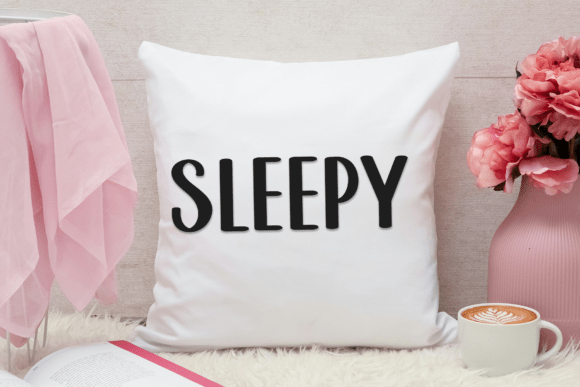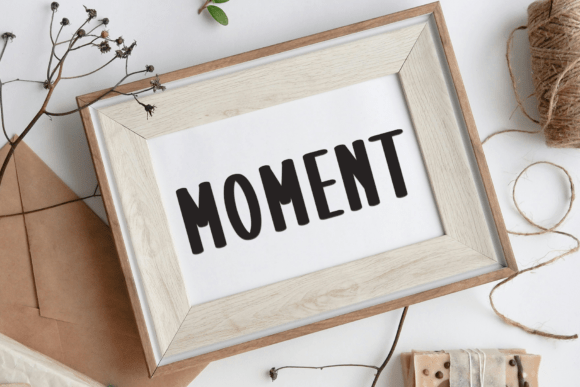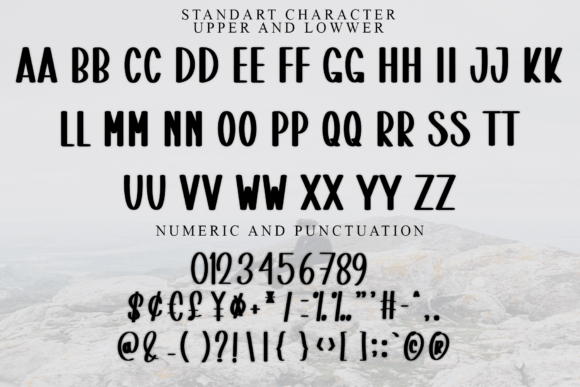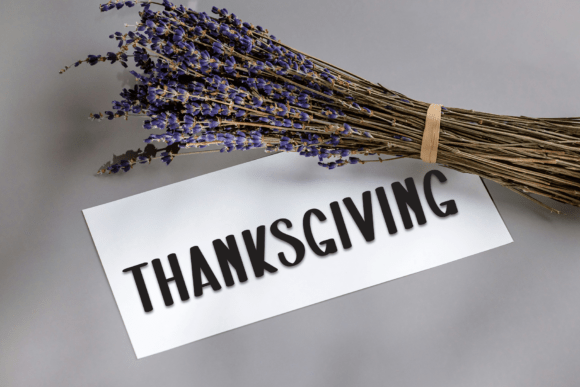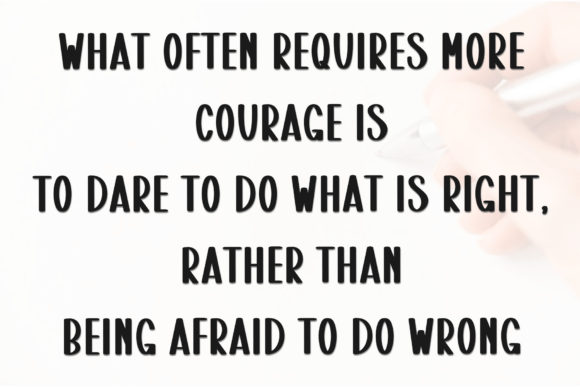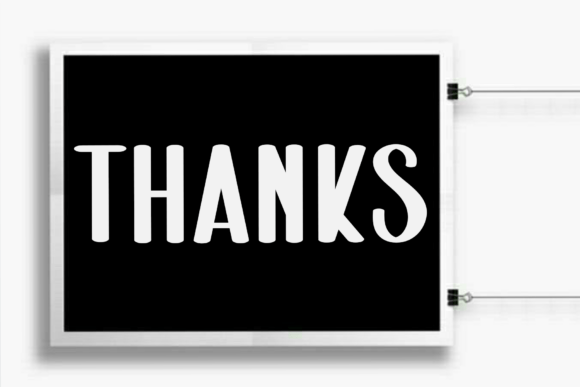
Introducing Alphabet Christmas Font: A Festive and Versatile Typeface for Designers and Crafters
As the holiday season approaches, designers and crafters are on the lookout for unique and eye-catching fonts to add a touch of festive flair to their projects. If you’re looking for a font that embodies the spirit of Christmas, look no further than Alphabet Christmas Font. This beautiful and distinctive typeface is designed with a soft, unique touch that sets it apart from other fonts, making it perfect for a wide range of creative projects.
A Font with a Special Character
Alphabet Christmas Font boasts distinctive strokes that give it a special character, making it both meaningful and versatile. Its unique design ensures that your projects stand out from the crowd, whether you’re working on a Christmas-themed design, a craft project, or any other creative endeavor. The font’s natural and effortless style makes it easy to pair with other fonts, allowing you to experiment with different combinations to achieve the perfect look.
With its wide range of characters, Alphabet Christmas Font is ideal for designers and crafters who want to add a personal touch to their work. Whether you’re creating holiday cards, gift tags, or decorations, this font is sure to impress. Its versatility also makes it suitable for use in various design projects, from digital graphics to print materials. The font’s unique style will add a touch of festive magic to your creations, making them appealing to audiences across different artistic and creative fields.
Enhance Your Designs with Alphabet Christmas Font
Alphabet Christmas Font is more than just a typeface – it’s a design element that can elevate your projects to the next level. Its natural and festive style makes it perfect for a wide range of products, from holiday-themed merchandise to craft supplies. By incorporating this font into your designs, you’ll create visually appealing and engaging projects that capture the essence of the holiday season.
Why Choose Alphabet Christmas Font?
• Unique and eye-catching design: Alphabet Christmas Font boasts a distinctive style that sets it apart from other fonts.
• Versatile and meaningful: The font’s special character makes it perfect for a wide range of creative projects.
• Wide range of characters: With various characters to choose from, you can experiment with different combinations to achieve the perfect look.
• Ideal for designers and crafters: This font is perfect for anyone looking to add a touch of festive flair to their projects.
Get Creative with Alphabet Christmas Font
In conclusion, Alphabet Christmas Font is a versatile and eye-catching typeface that’s perfect for designers and crafters looking to add a touch of festive flair to their projects. Its unique design, wide range of characters, and compatibility with various applications make it an ideal choice for anyone looking to create stunning designs. So go ahead, get creative, and make this holiday season one to remember with Alphabet Christmas Font.